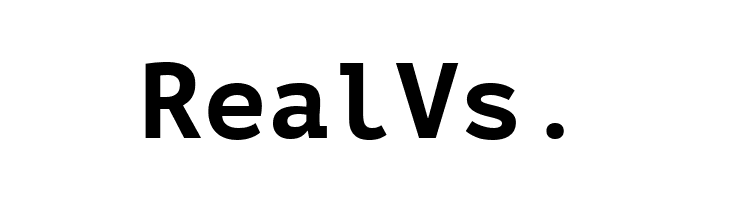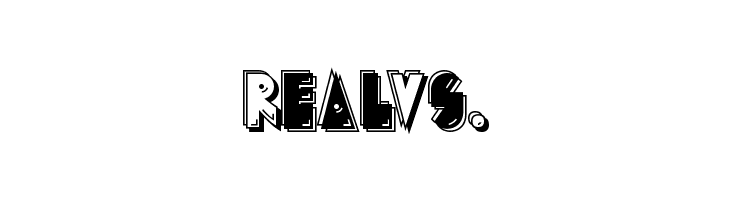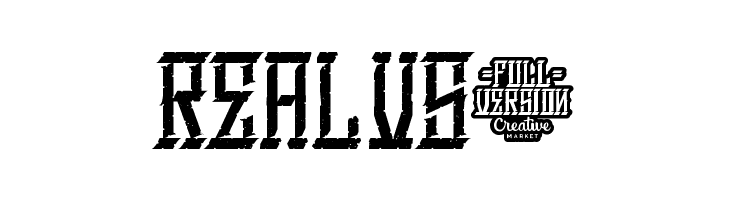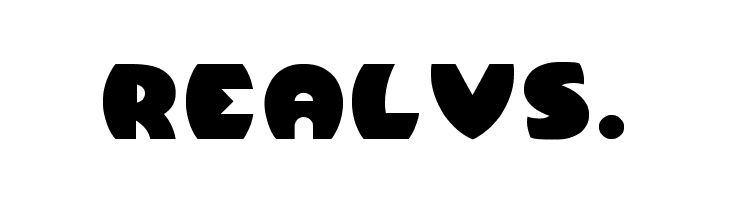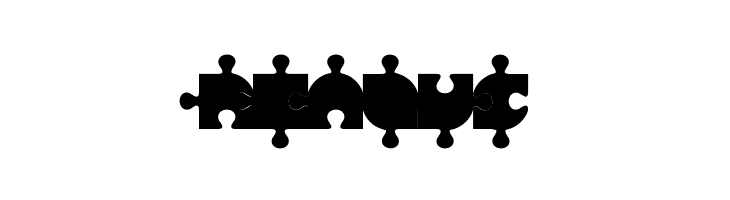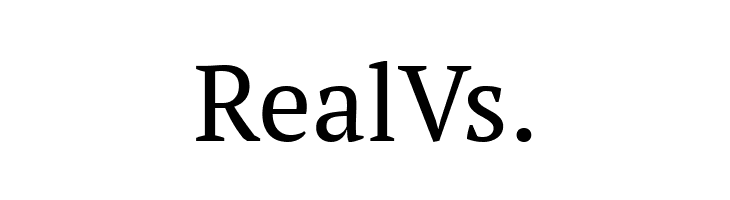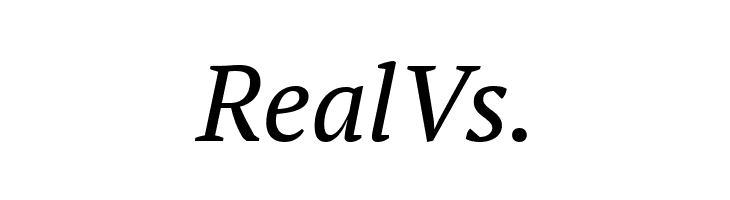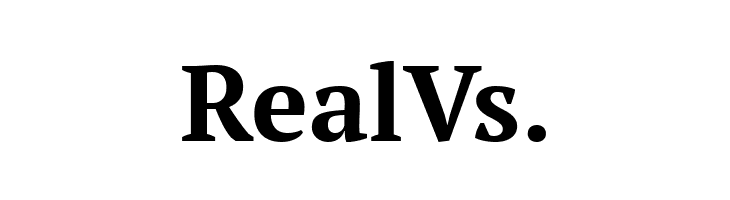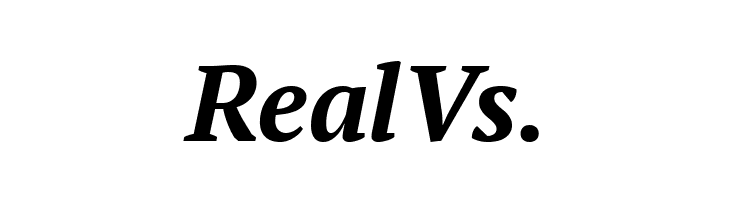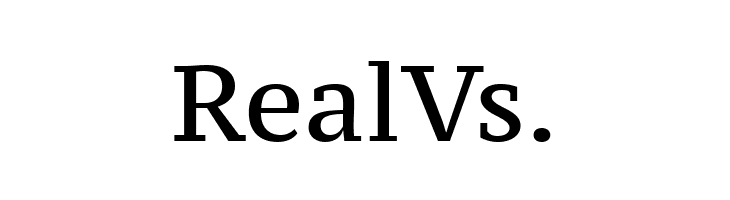
A modern, bold sans-serif font with geometric shapes and uniform stroke width.
A playful, casual handwritten font with smooth, flowing curves.
A clean, modern monospaced font with uniform character width and geometric design.
A bold, monospaced font with a modern and clean design, ideal for coding and display use.
A bold, modern sans-serif font with geometric shapes and consistent stroke width.
A modern, minimalist sans-serif font with uniform stroke widths and geometric shapes.
A modern, clean sans-serif font with a focus on readability.
A modern, sans-serif font with a clean and geometric design.
A modern, clean sans-serif font with excellent readability and versatility.
A bold, modern sans-serif font with clean lines and excellent legibility.
A clean and modern sans-serif font with consistent stroke weight and balanced proportions.
A bold, modern sans-serif font with uniform strokes and clear characters.
A modern, italic sans-serif font with clean lines and a dynamic style.
A modern, narrow sans-serif font with clean lines and uniform stroke width.
A modern, bold, narrow sans-serif font with clean lines and medium contrast.
A classic serif typeface with a modern touch, offering elegance and readability.
A bold serif typeface with strong, classic letterforms and excellent readability.
A bold, italic serif font with a classic and dynamic style.
A modern serif font with classic elegance and excellent readability.
Elegant serif font with a subtle italic slant and medium contrast.
Elegant serif font with a classic italic style and moderate contrast.
A bold, retro arcade-style font with three-dimensional outlines and geometric details.
A bold, rounded font with a playful and whimsical style.
A spiky, explosive decorative font with dynamic, aggressive styling.
A bold, angular font with a distressed, rugged appearance.